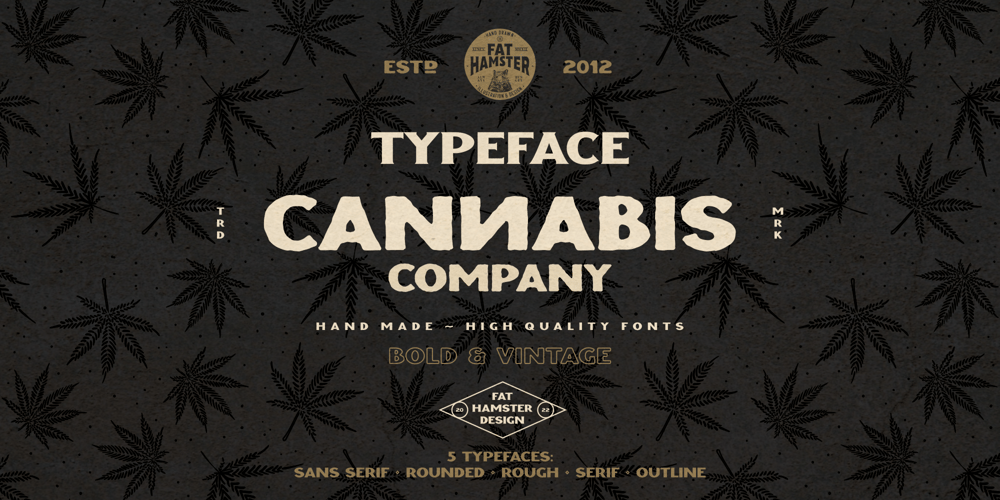
CANNABIS Company
CANNABIS Company font
CANNABIS Company Font Family was designed by Alesia Kutsian, Aliaksei Hvozdzeu and published by Fat Hamster. CANNABIS Company contains 5 styles and family package options. CANNABIS company is a vintage display typeface, it has an old American feel. CANNABIS company typeface includes 5 font styles: serif, sans serif, rough, outline, round. CANNABIS company font with bonus cannabis leaf, hemp, CBD, pre-roll, joint illustrations are great for CBD company logo design; label for cannabis products and CBD packaging design; badges, clothing and t-shirts; posters and headings; distillery and brewery branding design; spirits label design (such as rum, gin, whiskey, bourbon, vodka, tequila, mezcal, beer); coffee and tea; supplements and cosmetics design and much much more.